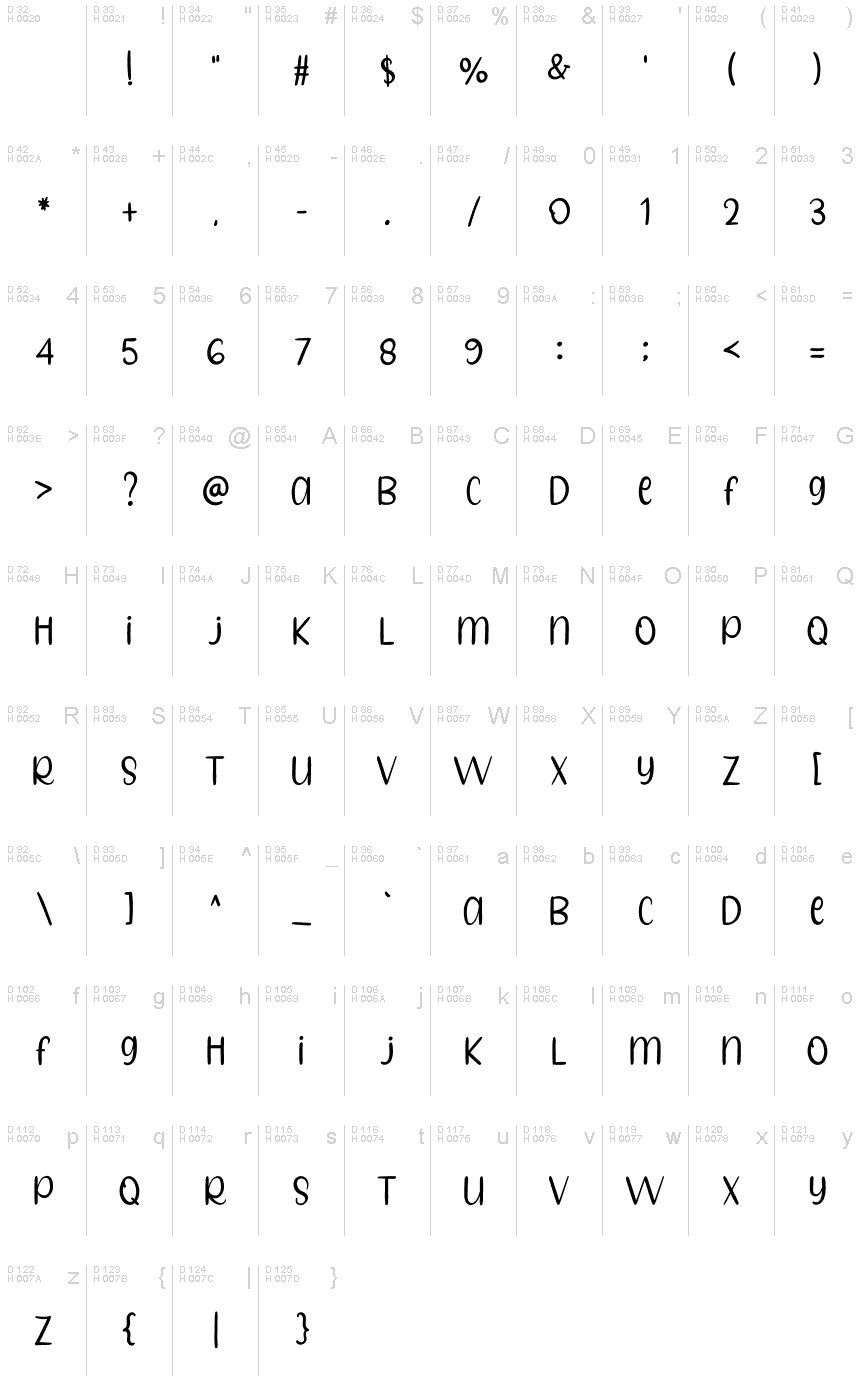
Vintage Memory
Vintage Memory is a stunning handwritten font designed by Belina Studio. With its semi-light weight and semi-condensed width, this font is perfect for creating unique designs that evoke a sense of nostalgia and vintage charm. The elegant curves and flowing lines of Vintage Memory add a touch of sophistication to any project, making it ideal for use in wedding invitations, branding materials, or even social media graphics. Whether you're designing an old-school logo or a retro-inspired poster, Vintage Memory is the perfect choice for adding a touch of timeless elegance to your work.
the latest style letters are perfect for wall displays, wedding invitations, social media post logos, advertisements, product packaging, product designs, labels, photography, watermarks, invitations, stationery, and any project that requires taste handwriting.